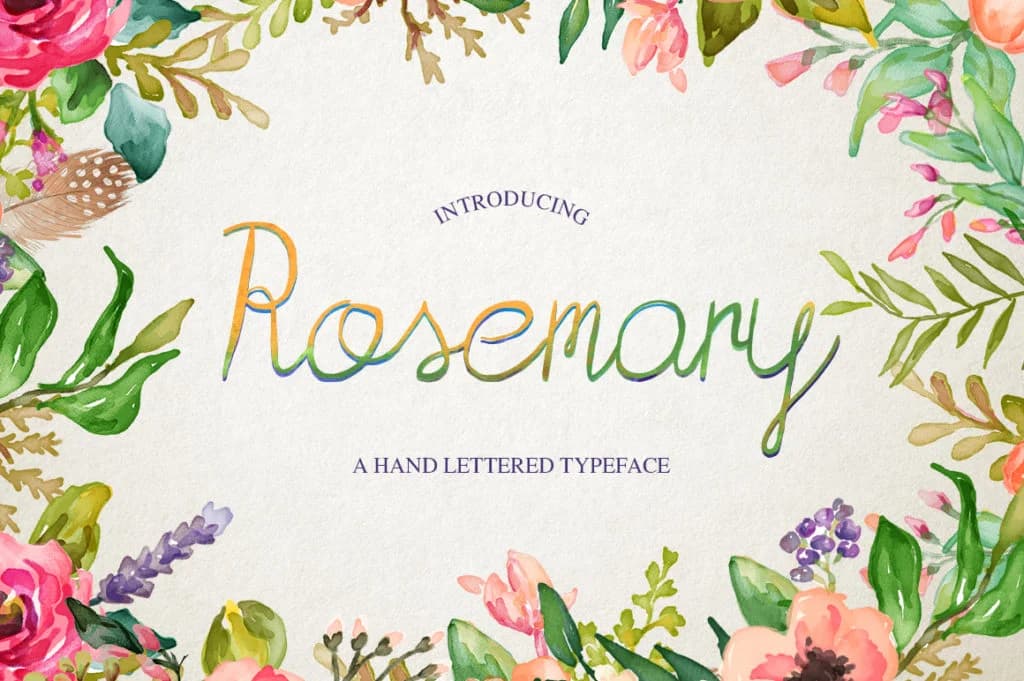
About Rosemary Font
Rosemary Font by Jokiranta is a flowing script typeface rooted in authentic handwriting traditions, bringing genuine warmth and personality to designs that need a personal, refined voice. The typeface features graceful letterforms and organic proportions that work seamlessly across different sizes while maintaining excellent clarity and readability on both digital screens and printed materials. Its balanced construction ensures it remains legible whether displayed large on signage or small in body text.
This script font excels in specialized design applications where personality and authenticity matter most. Consider using it for high-end wedding stationery suites, custom cosmetics and skincare labeling, artisanal bakery menus and table cards, indie publishing covers, or boutique product packaging that demands character. Social media content creation, especially for lifestyle, wellness, and handcraft brands, benefits tremendously from the authentic handwritten quality that builds genuine connection with audiences. The font's elegant letterforms also work beautifully in branded packaging for specialty goods, editorial magazine spreads, and personalized greeting card designs seeking visual distinction.
Rosemary Font is a script font that shines as a display or heading face. Pair it with a clean sans-serif or serif font for body text β the contrast creates a clear hierarchy while the two styles stay balanced and easy to read.
Rosemary Font
by Jokiranta